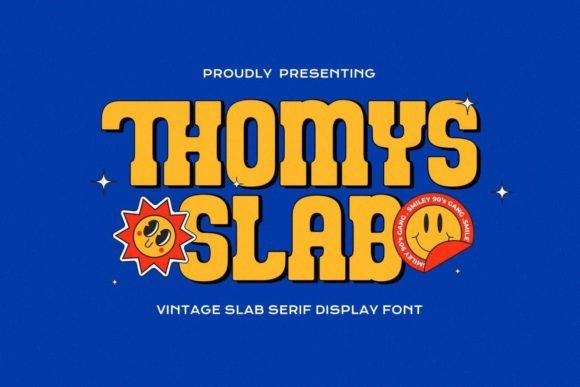
Step into the realm of Thomys Slab, a display font that ignites creativity and breathes life into your designs. Let your imagination run wild as you discover the playful and authentic charm embedded in each letterform. Thomys Slab is crafted with the primary school spirit in mind, capturing the essence of fun, laughter, and learning.
With its energetic and approachable style, Thomys Slab is the perfect companion for school projects, children's books, posters, and any design that seeks to inspire and engage. Its funky lettered design has a magical way of making words come alive, creating a captivating experience for young and old alike.
Unlock the full potential of Thomys Slab with its PUA encoding, granting you effortless access to a world of glyphs and ligatures. Unleash your creativity and explore the boundless possibilities as you effortlessly craft designs that resonate with joy and authenticity.
Don't let your designs be ordinary—make a statement with Thomys Slab. Its vibrant personality and playful spirit will transform your projects into masterpieces, leaving a lasting impression on all who encounter them. Embrace the power of Thomys Slab today and let your imagination soar!